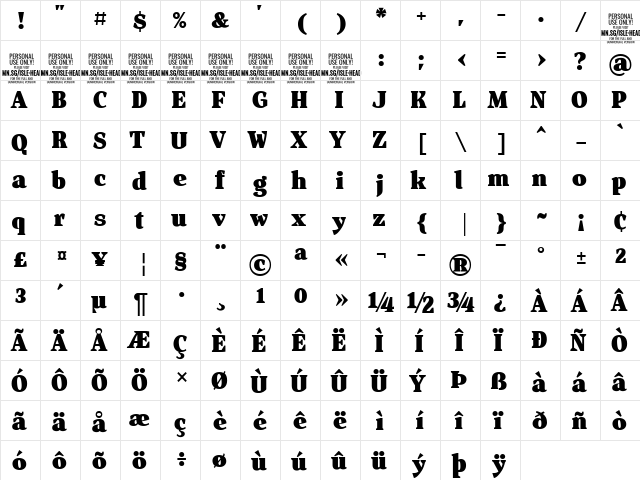
Isle Headline PERSONAL USE Black
| Foundry | Mans Greback |
| Designer | Mans Greback |
Design Context for Isle Headline PERSONAL USE Typeface
Isle Headline PERSONAL USE takes a measured approach to typography — its balanced proportions and neutral character make it a reliable workhorse for both digital and print work.